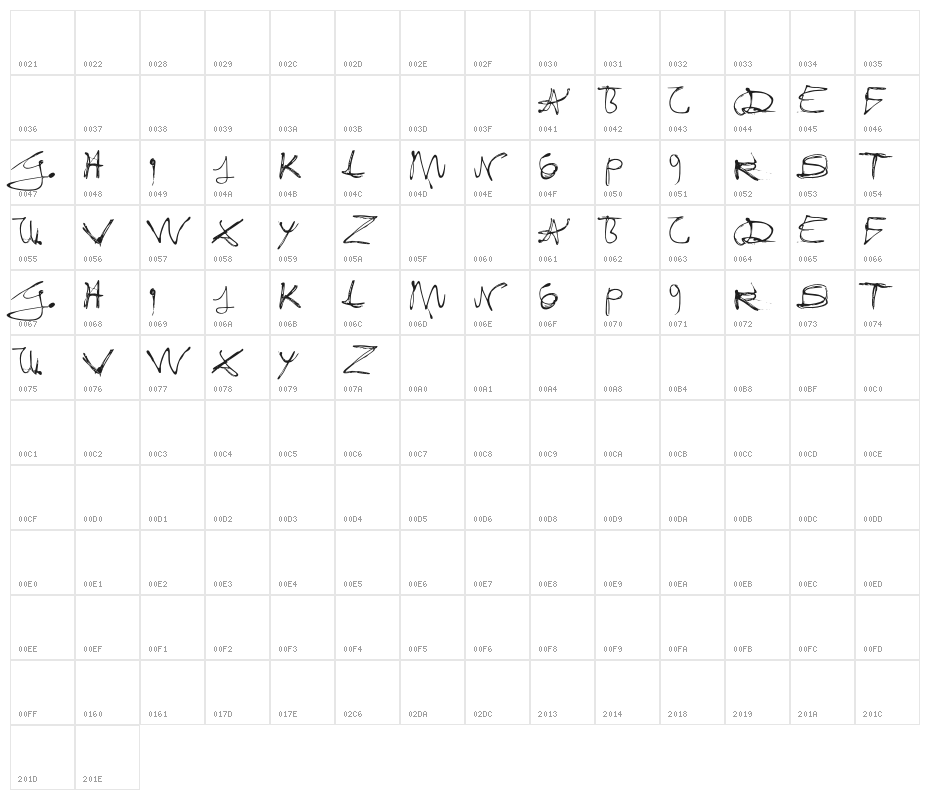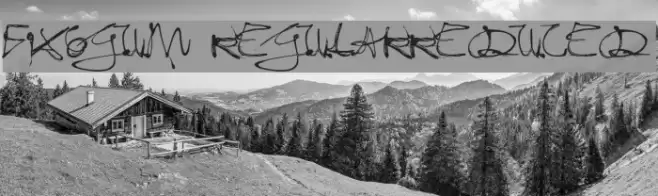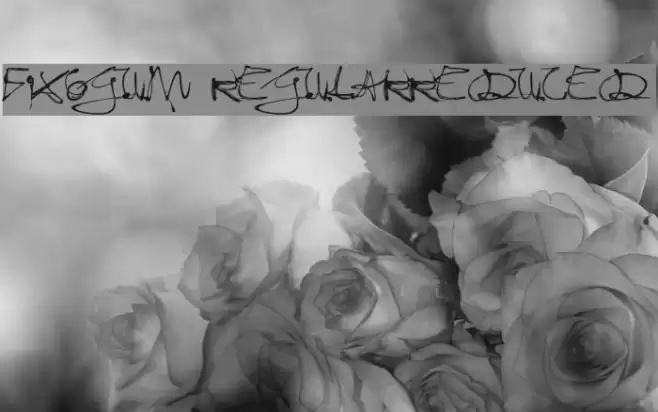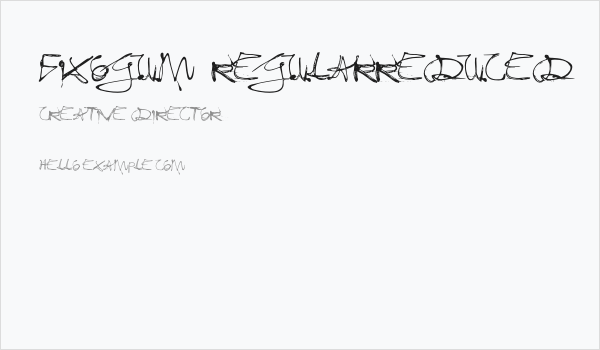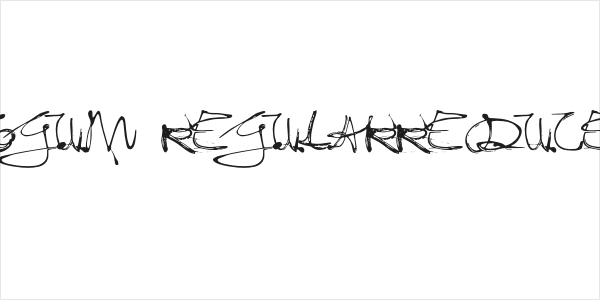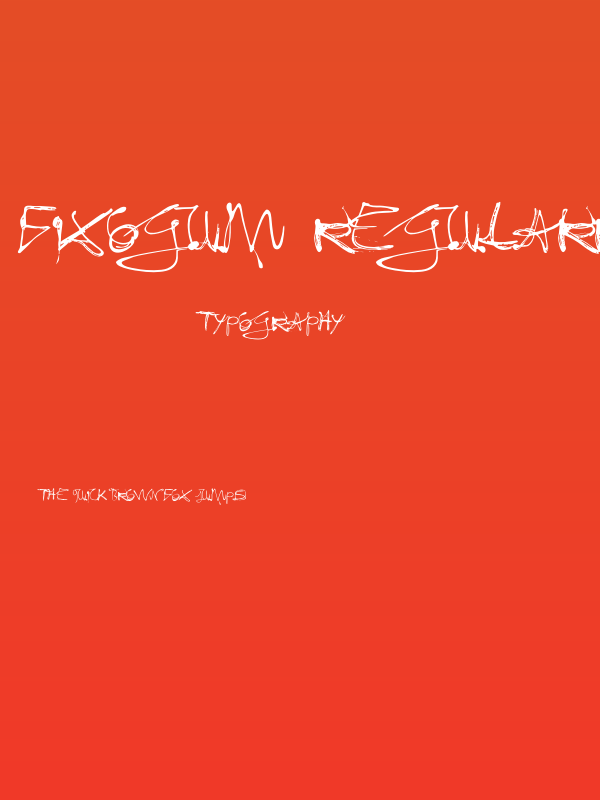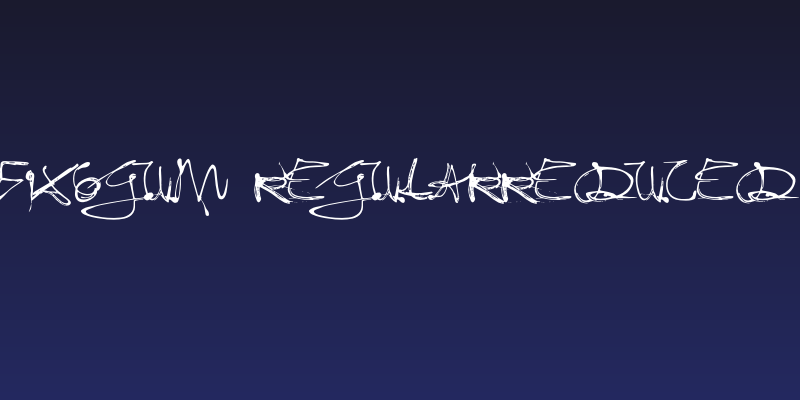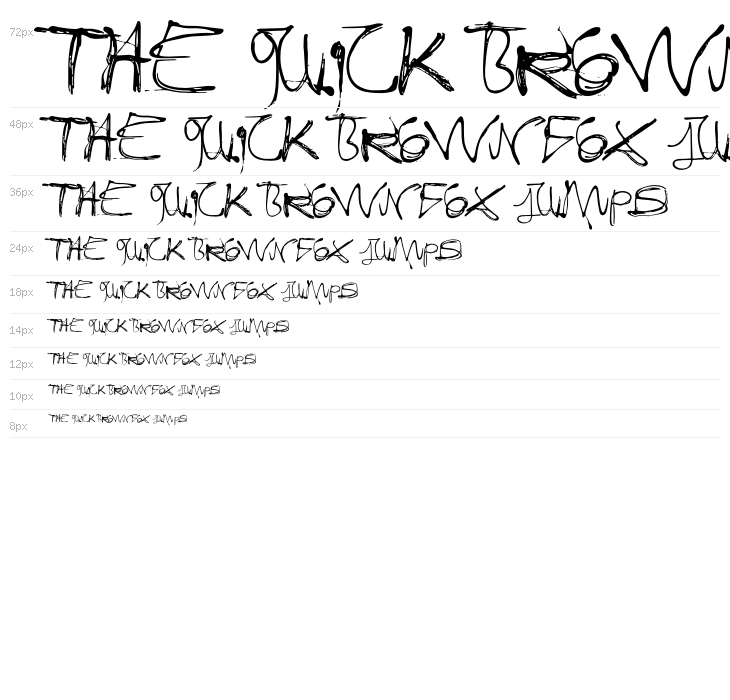
Fixogum-Regularreduced Font
Fixogum-Regularreduced Description
This font exhibits a highly expressive and artistic style, characterized by its dynamic, brush-like strokes that convey a sense of movement and energy. The letters are irregular and vary in thickness, giving it a raw, hand-drawn appearance. The uppercase and lowercase letters maintain a consistent aesthetic, with exaggerated curves and sharp angles that create a visually striking effect. The font's unique style makes it stand out, with each character appearing as if it has been painted with a calligraphic brush. This font is ideal for projects that require a bold and unconventional look, capturing attention with its dramatic flair.
| Overall Style | Artistic, Expressive |
| Use Case | Headlines, Logos, Artistic projects |
| Proposed Projects | Ideal for artistic posters, album covers, creative branding, and any project seeking a bold, unconventional look. |